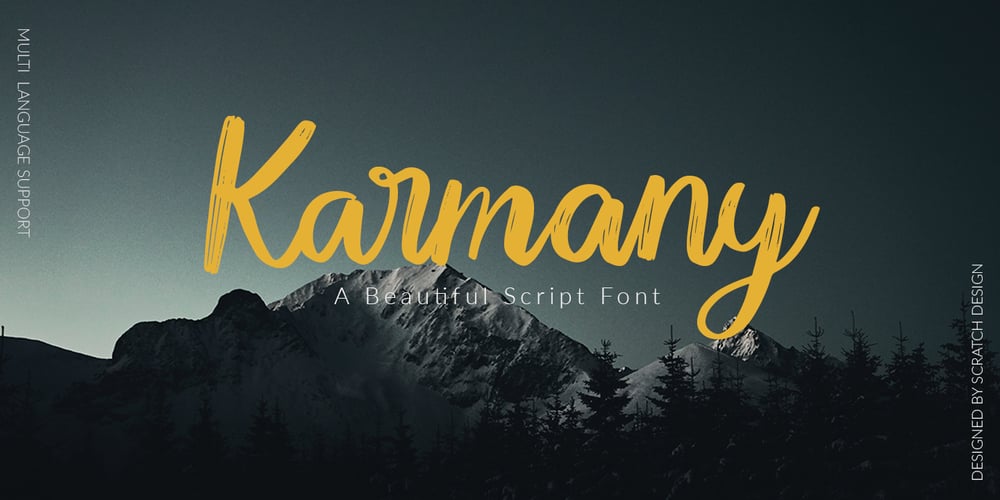
Karmany
Karmany font
Karmany Font Family was designed by Gitayogi Irhandi and published by Scratch Design. Karmany contains 1 styles and family package options. Karmany is a hand drew font made with original brush shapes which make this font look beautiful and will match for your logo designs, flyers, brochures, signature, quote texts and also menu design for food and beverage. Karmany contains Uppercase & Lowercase, Numbers, Punctuation. It offers Multilingual Support, works on Mac and Windows OS and is easy to install. We hope you like it and thank you so much for your purchase.